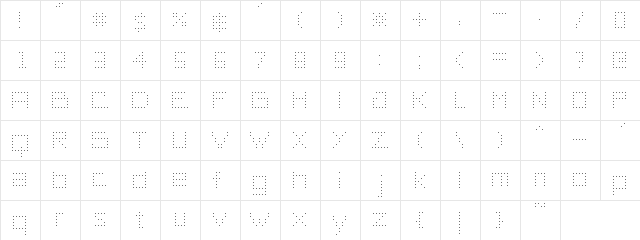
whatever light Regular
Design Context for whatever light Typeface
whatever light is a composed and adaptable typeface that performs quietly and consistently across a wide range of design contexts. The delicate stroke weight brings airiness and refinement to layouts.